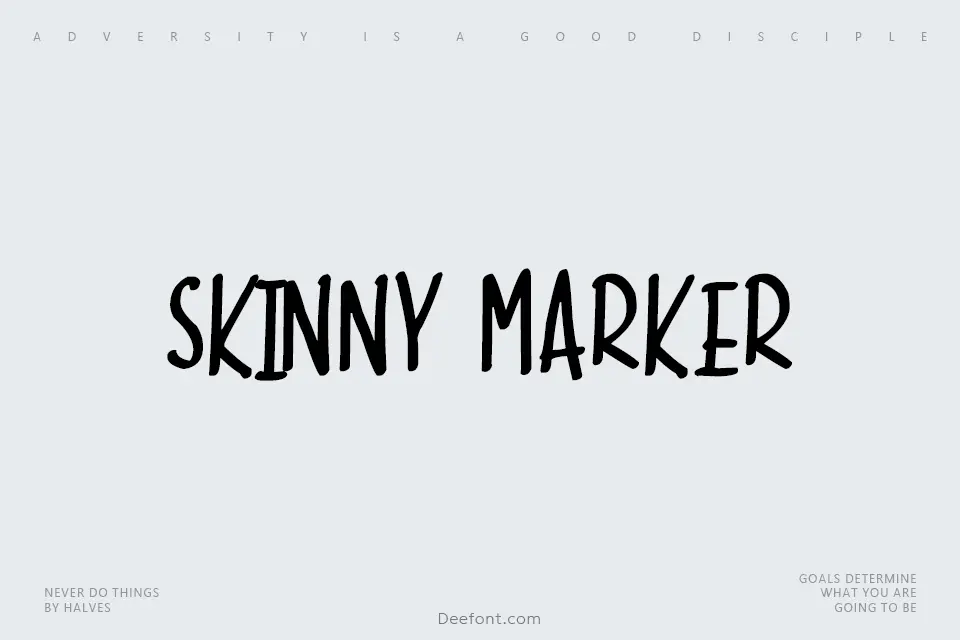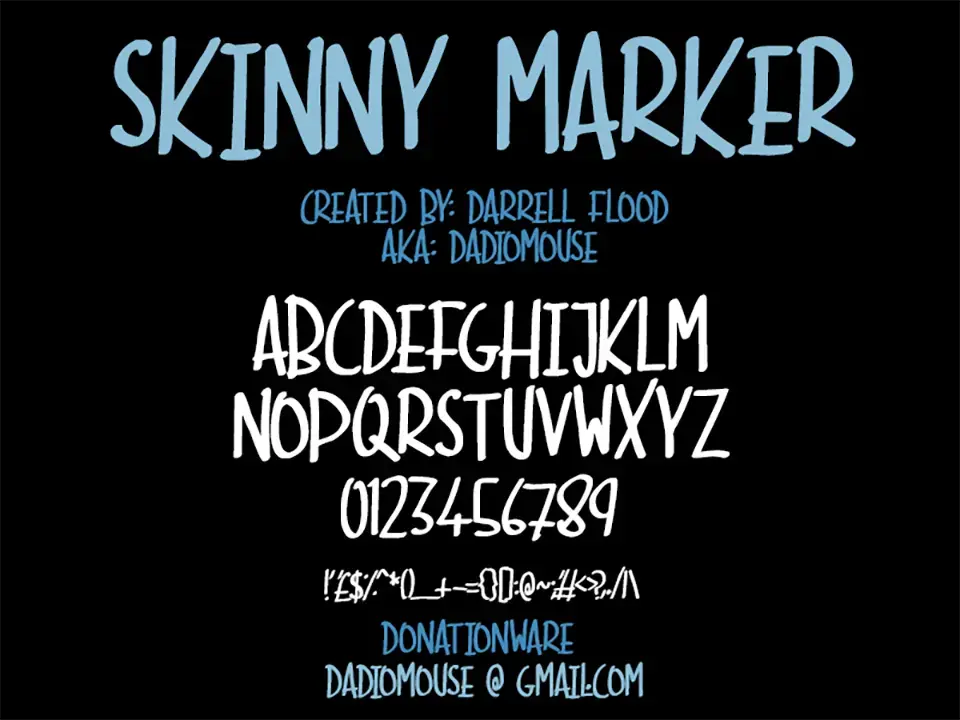
Skinny Marker Font
Skinny Marker is a hand-drawn handwritten script font featuring tall, narrow characters with delicate pen strokes and organic, marker-like irregularities. Created using Scanahand technology, this font delivers an authentically casual appearance ideal for posters, title designs, greeting cards, and creative branding projects. The thin stroke weight and playful character construction make it especially suited for designs targeting younger audiences or projects requiring an artistic, street-inspired aesthetic inspired by quick graffiti tags.